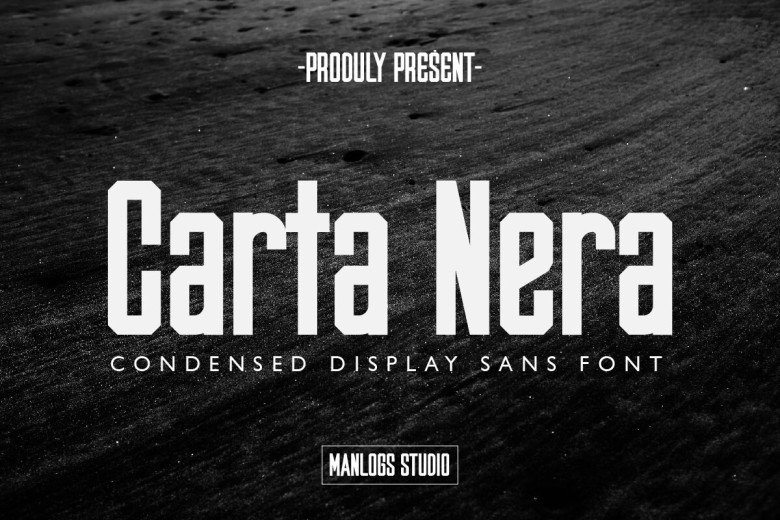
Carta Nera Font
Carta Nera is an impressive simplified display without font, featuring athletic and bold style with punched corners, rounded edges, and huge height x height. Punched corners with smoothed corners rounding off some harshness in its form, huge height x makes this font sure to make your design or project more stylish and attractive.
Carta Nera Display Font